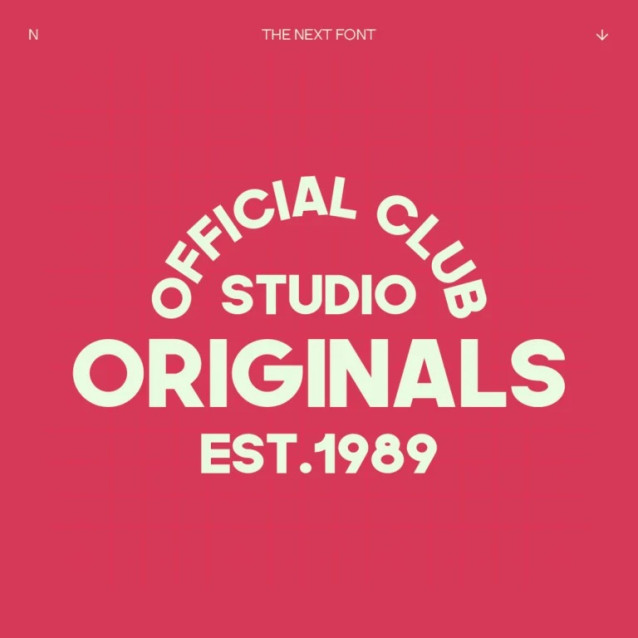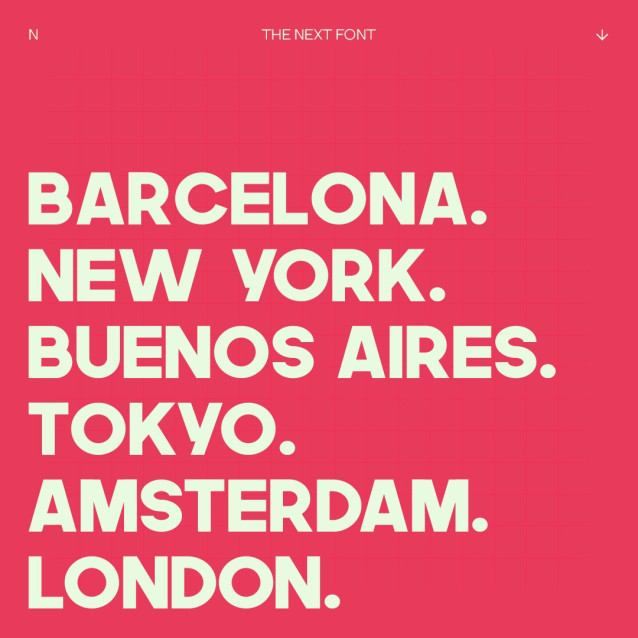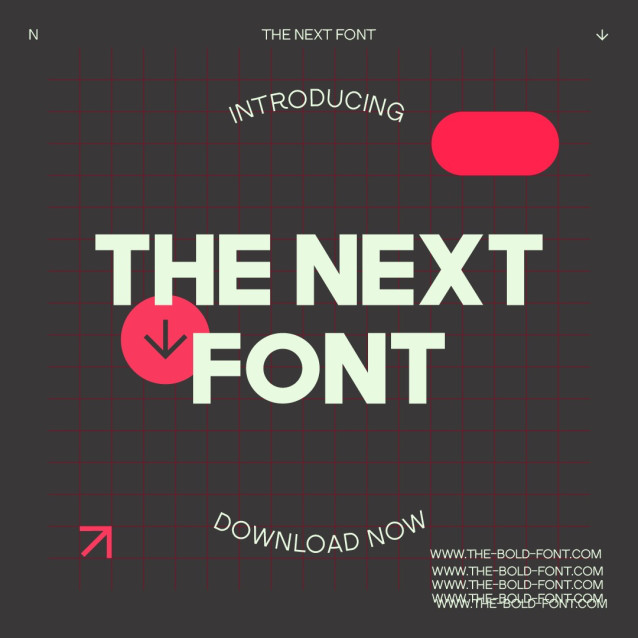
The Next Font
The Next Font a bold statement with our latest sans-serif font. With its clean lines and modern appeal, this font is sure to turn heads and leave a lasting impression. Perfect for headlines, logos, and any design that demands attention. It is both functional and stylish, making it a versatile choice for a wide range of design projects. A bold uppercase meets fat lowercase for maximum impact.